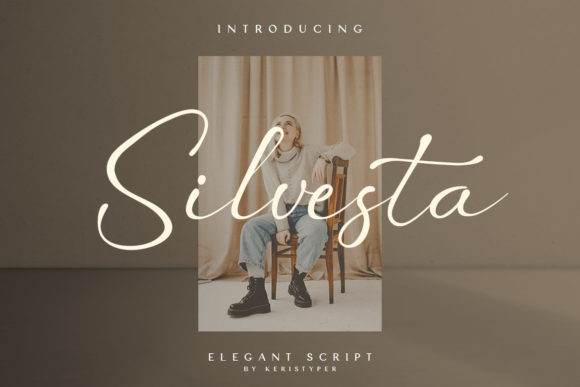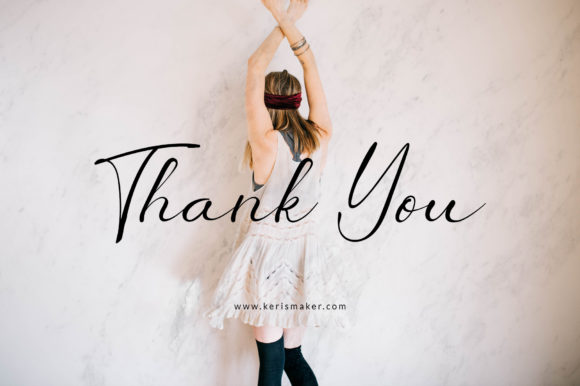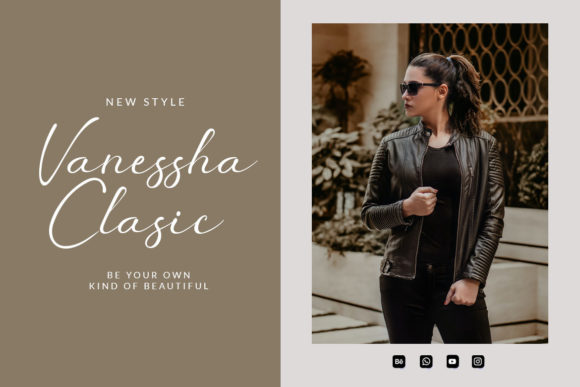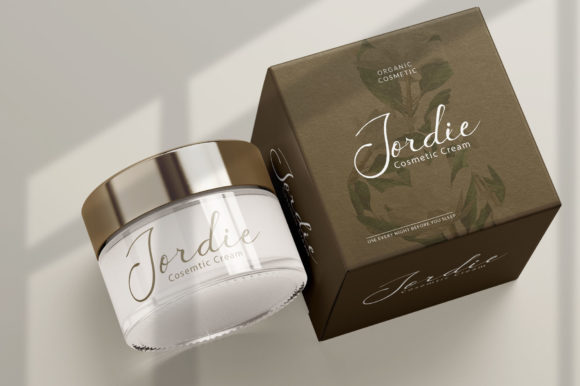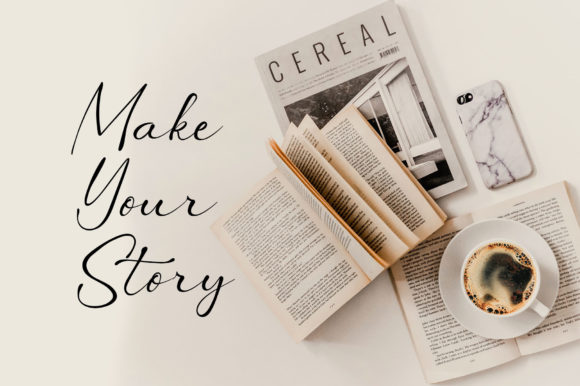
About Silvesta Font
Silvesta is a sweet, whimsical, flowing and thin script font. Featuring characters that dance along the baseline, this font will add a luxury spark to any design project that you wish to create!